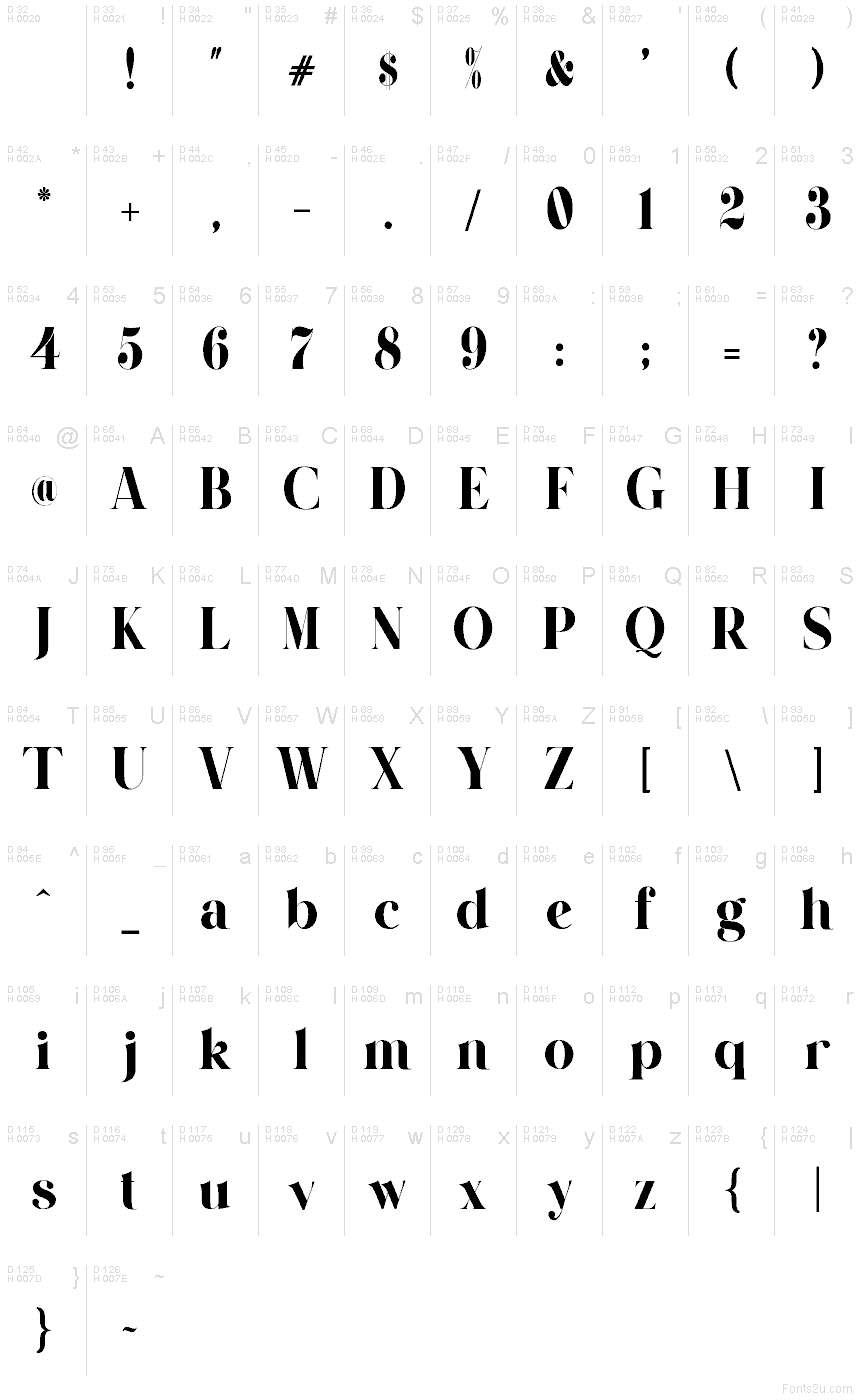
Masky
Masky font by Graphicxell is a free decorative serif typeface. Its drama comes from voluptuous inky curves that swoop into knife-clean cuts, with teardrop endings that feel theatrical without getting fussy. The letters stack dense black shapes against airy hollows, creating a confident rhythm that grabs attention yet reads smoothly at larger sizes.
Using Masky, headlines and logos gain a couture edge that suits fashion branding, boutique packaging, wine labels, magazine covers, gala invitations, and bold poster work. The spacing feels tight and intentional, so words lock together like a polished mark. For balance, pair this free font with a simple grotesque sans for body copy, or let Masky shine alone with generous letterspacing.